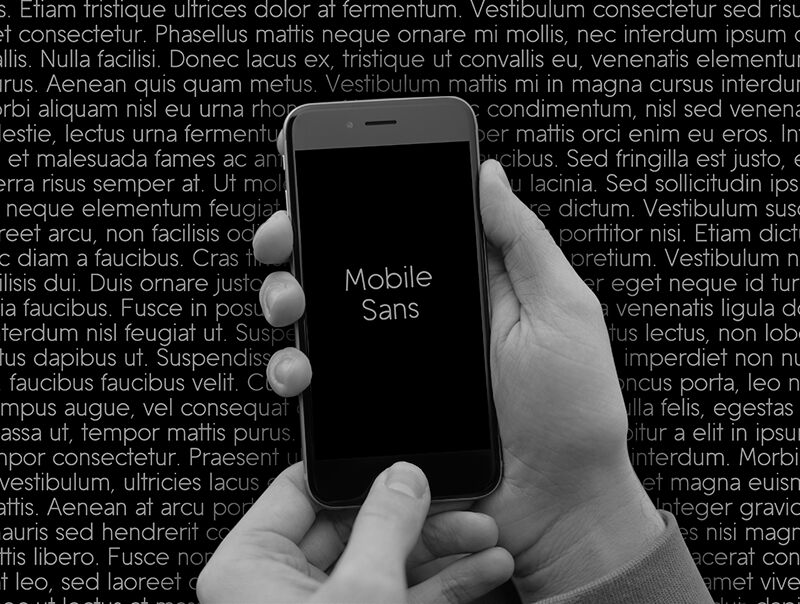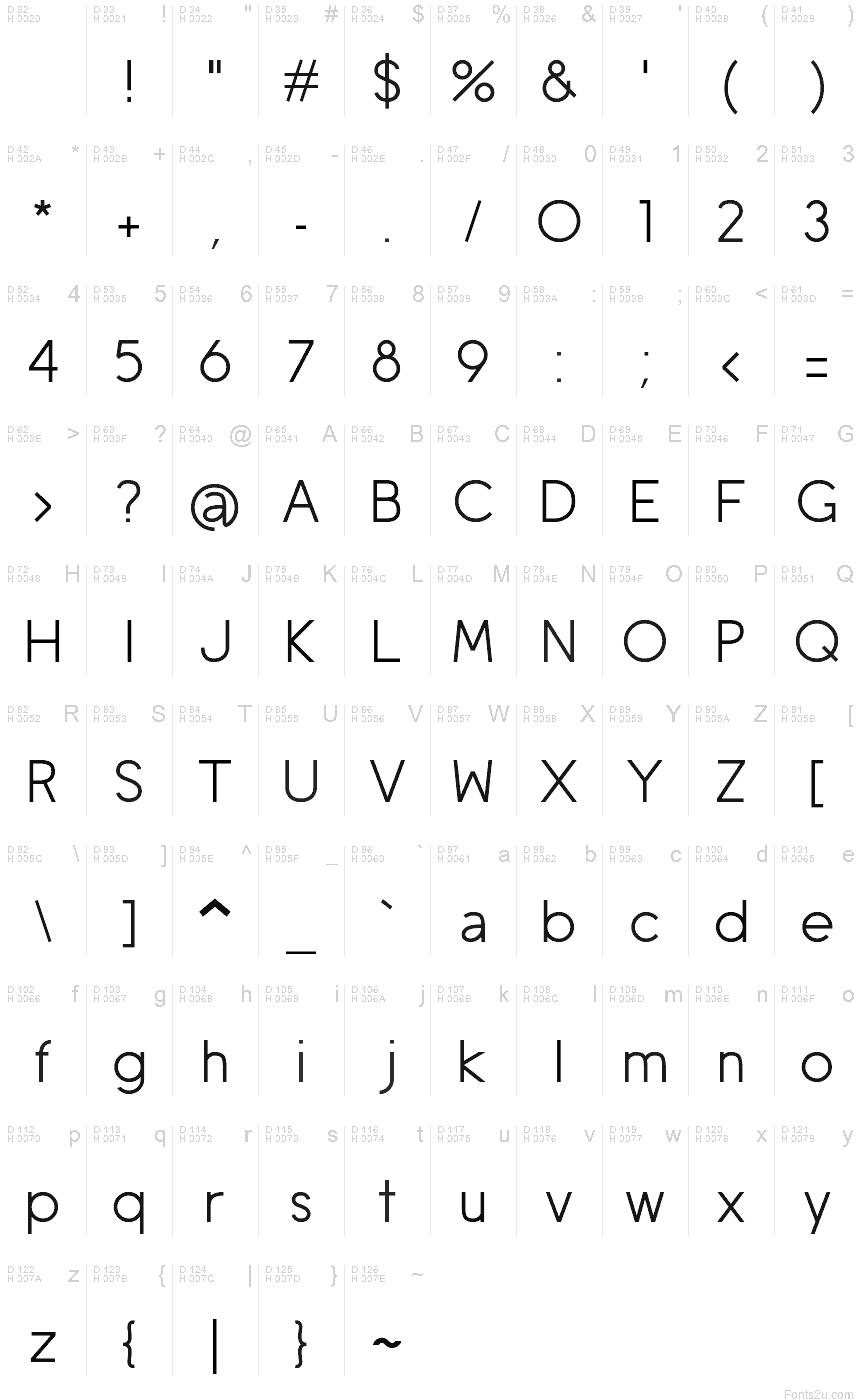
Mobile Sans
Mobile Sans font was created by Nelson Fraga.
This font was specially made to facilitate the reading of texts,
and make them more enjoyable and comfortable.